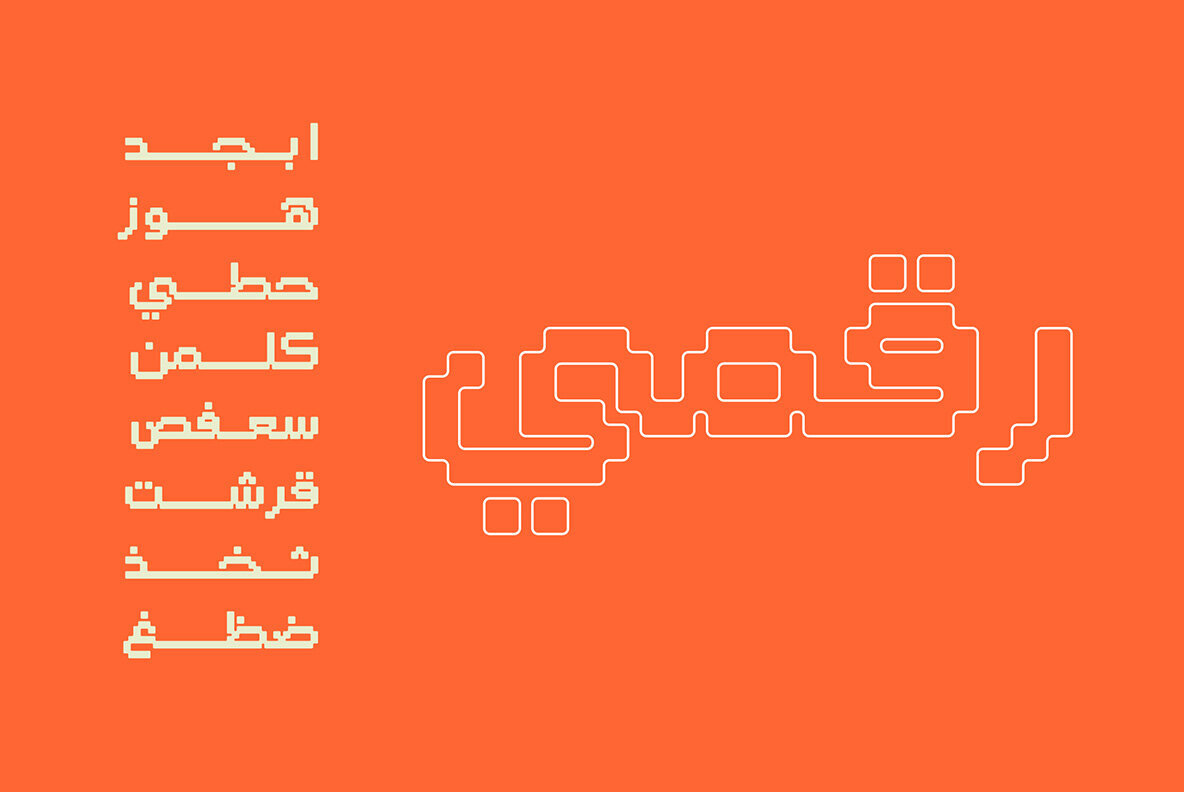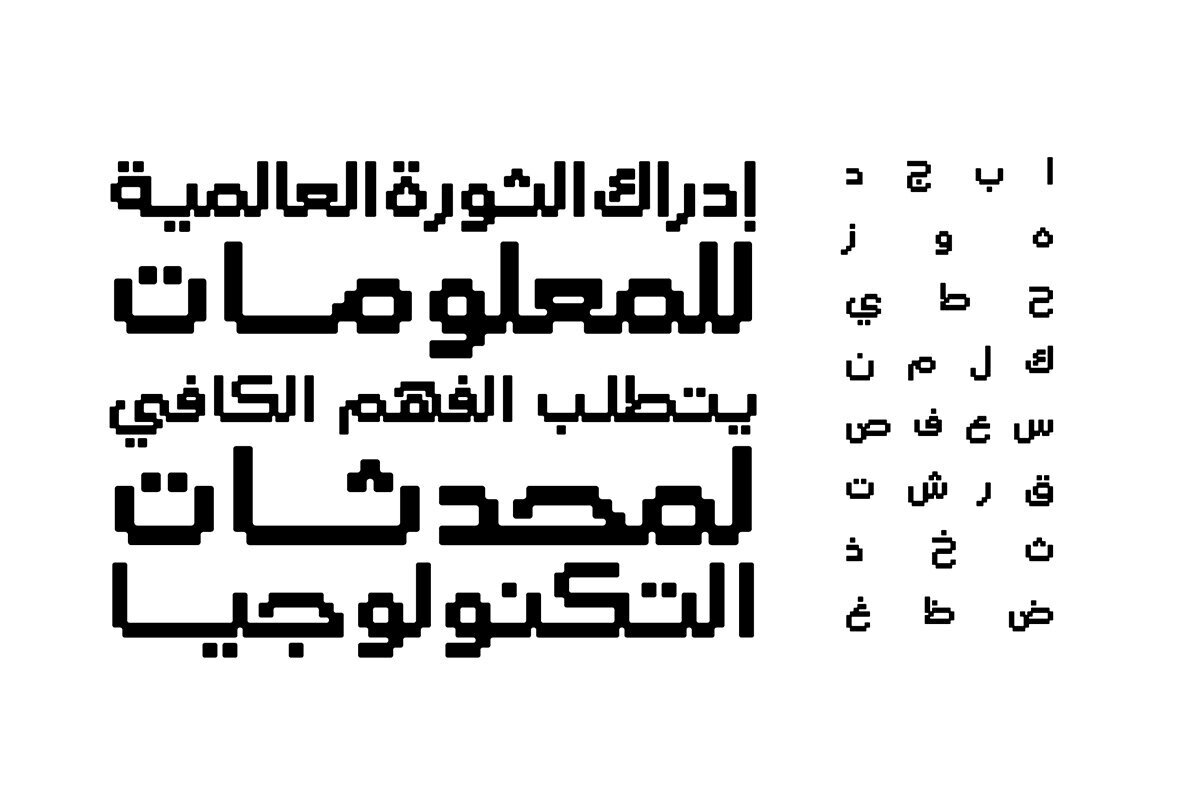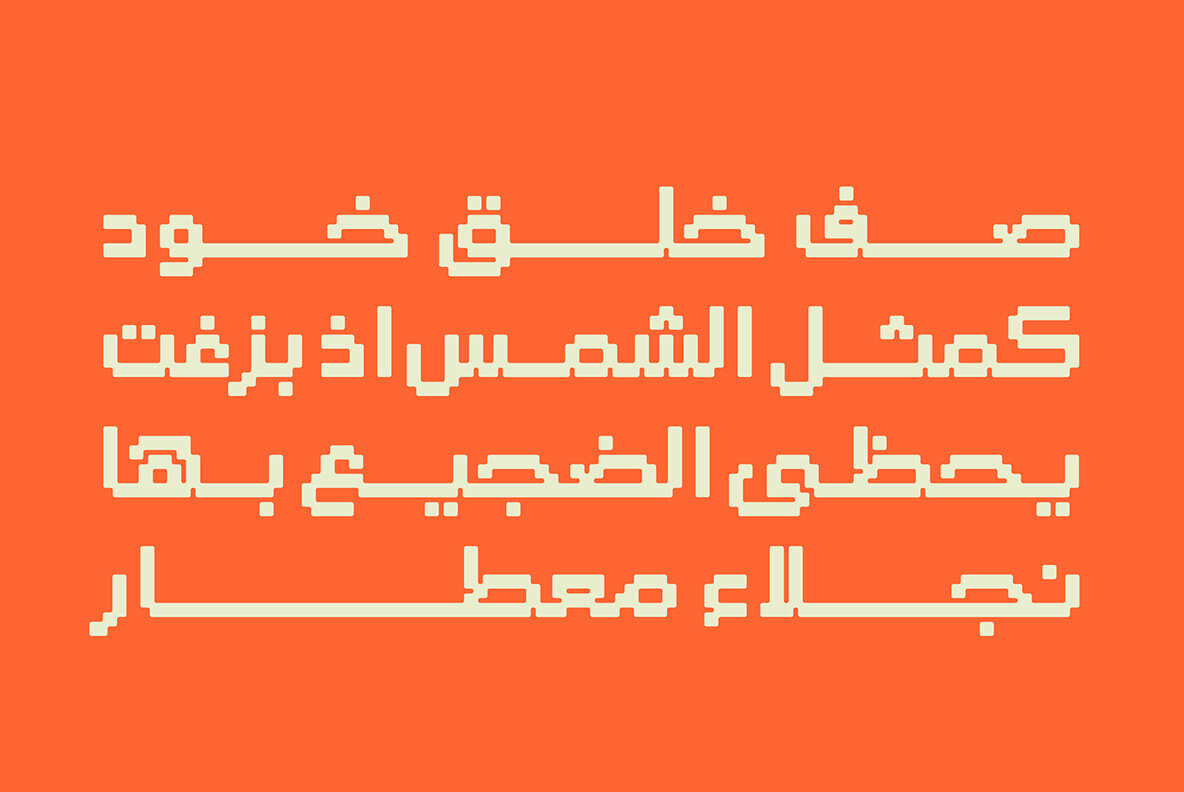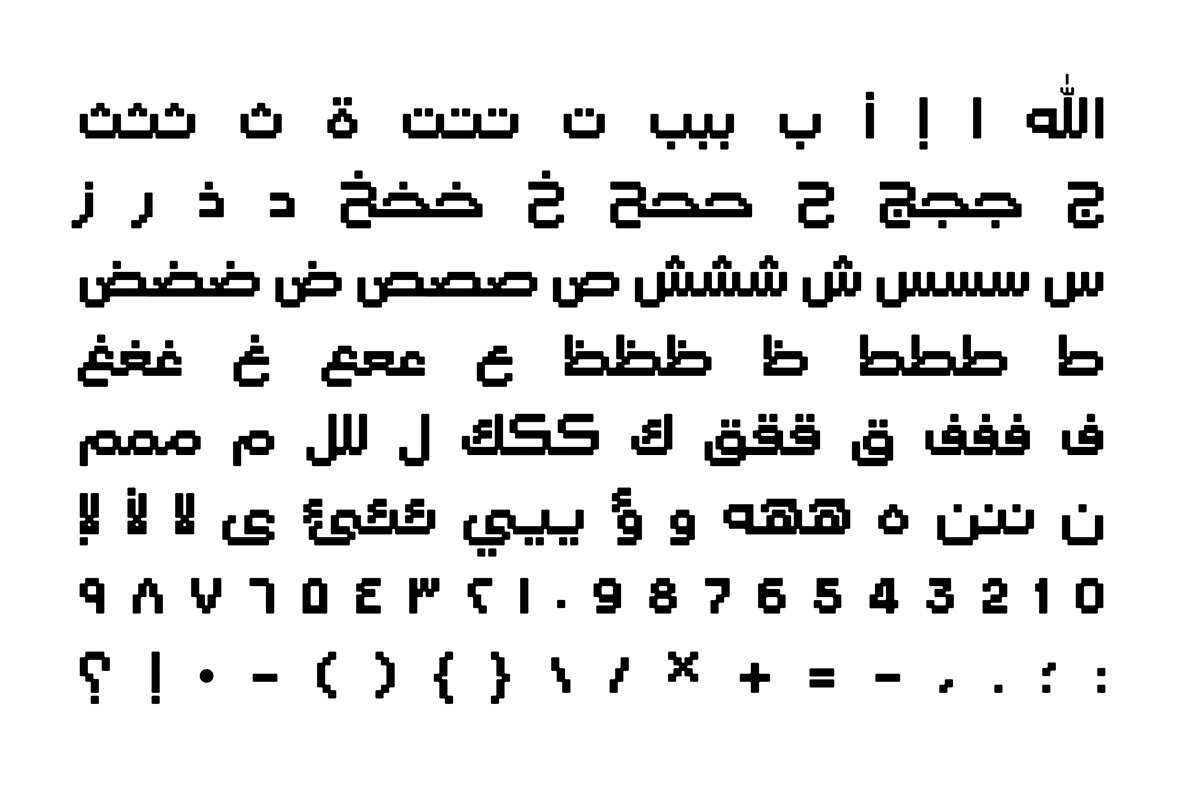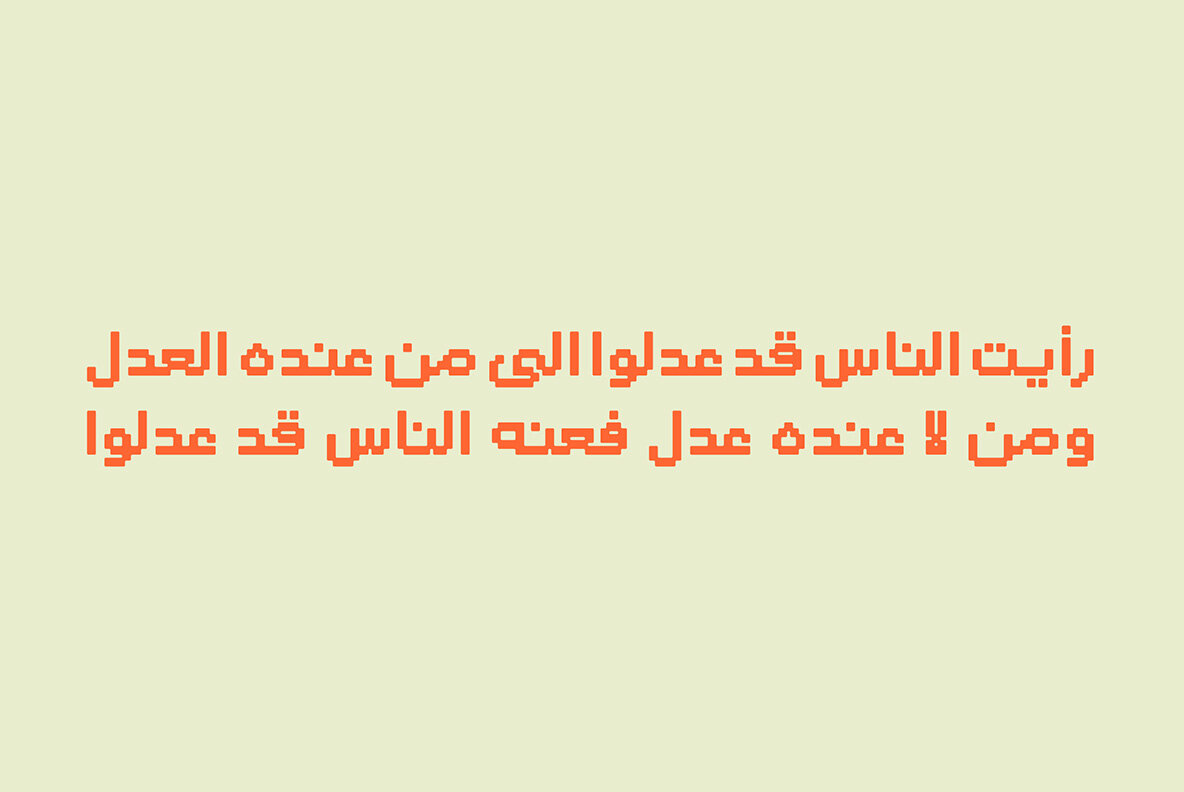
Raqami Font
Raqami Regular
Raqami (the Arabic word for 'Digital') is an Arabic display typeface that features a pixelated letterform design, drawing inspiration from the 8-bit graphic style. The font is suitable for contemporary design projects, including print advertising, as well as web and mobile applications.